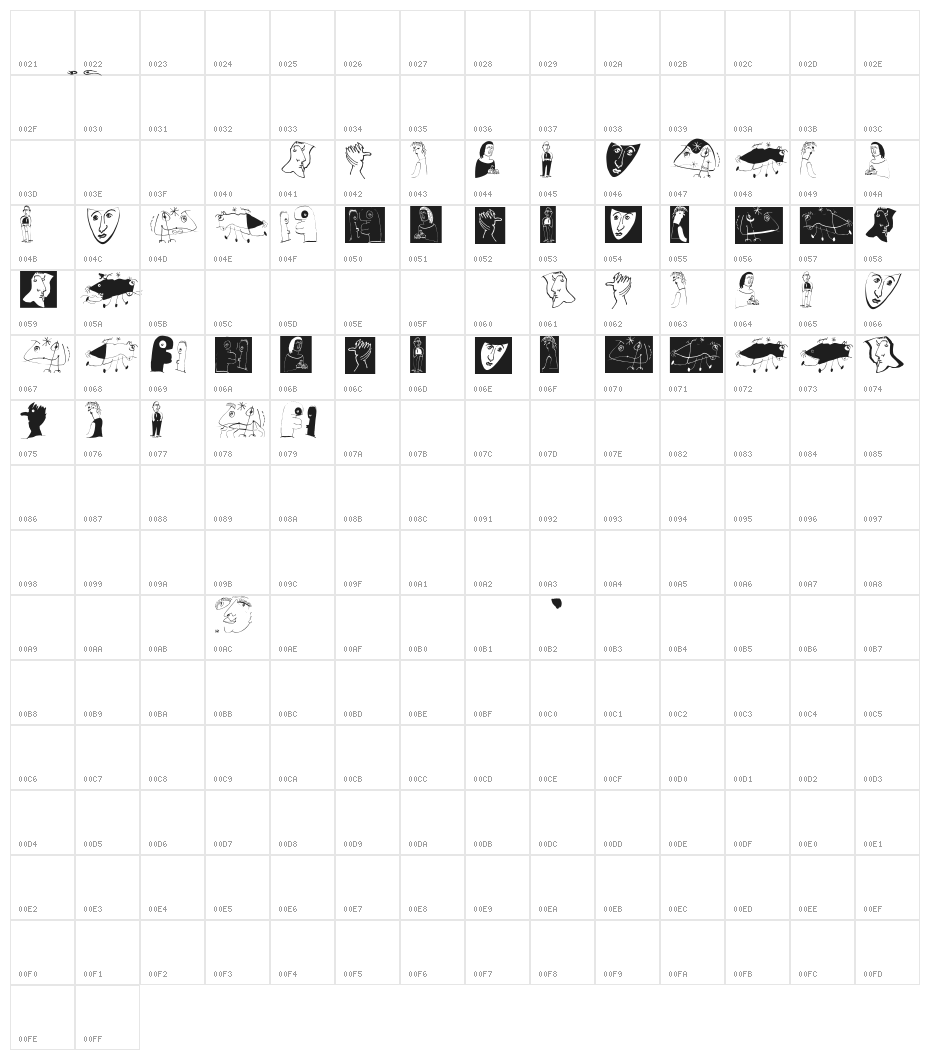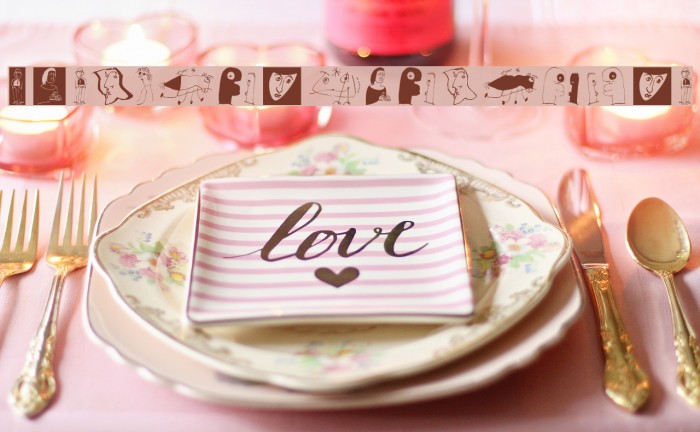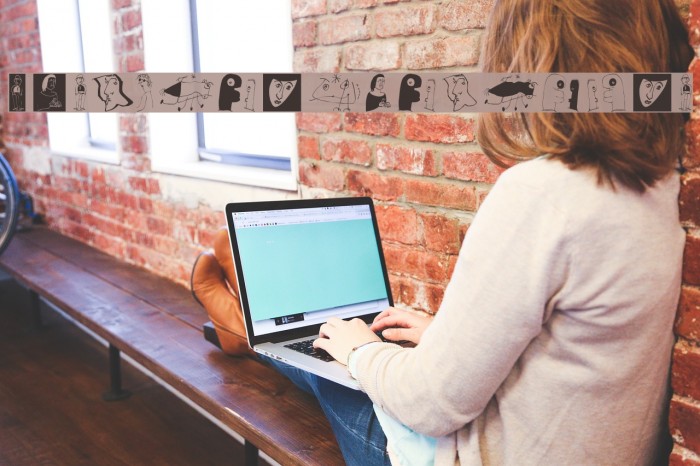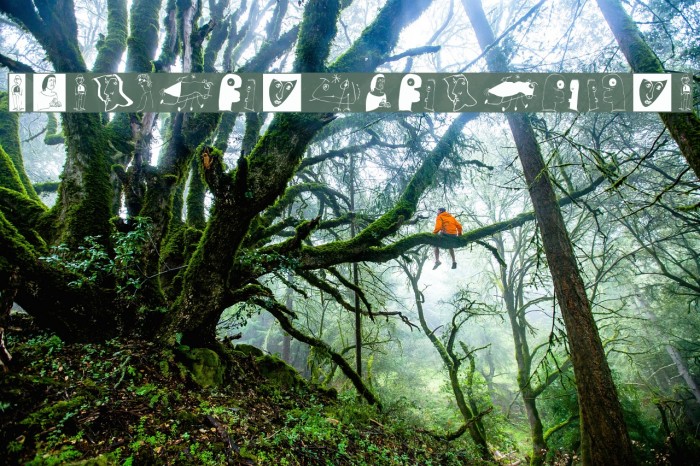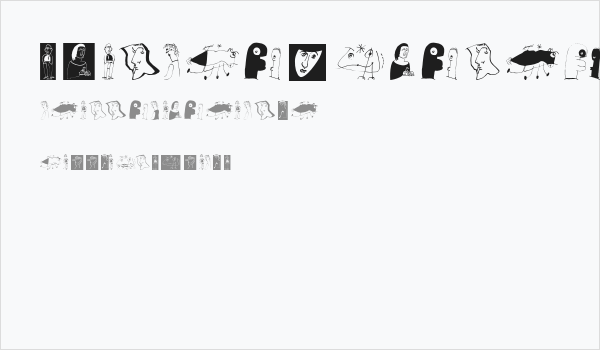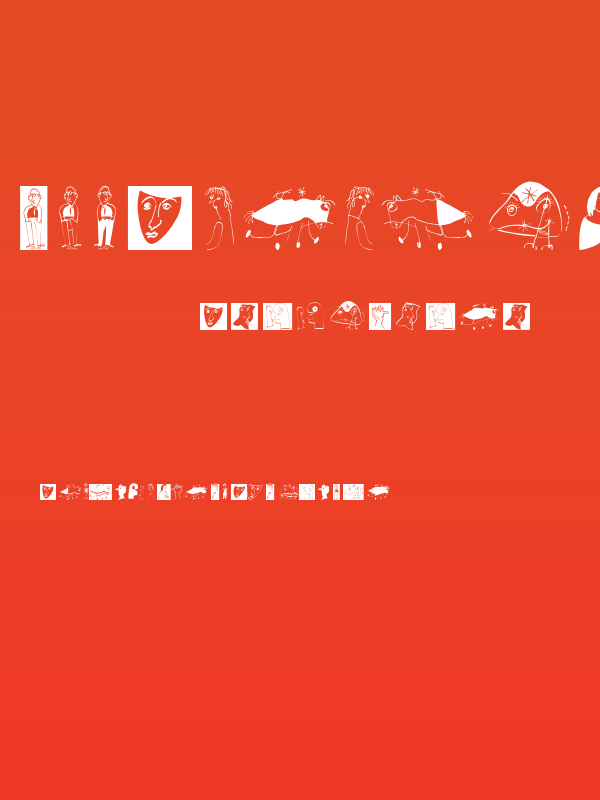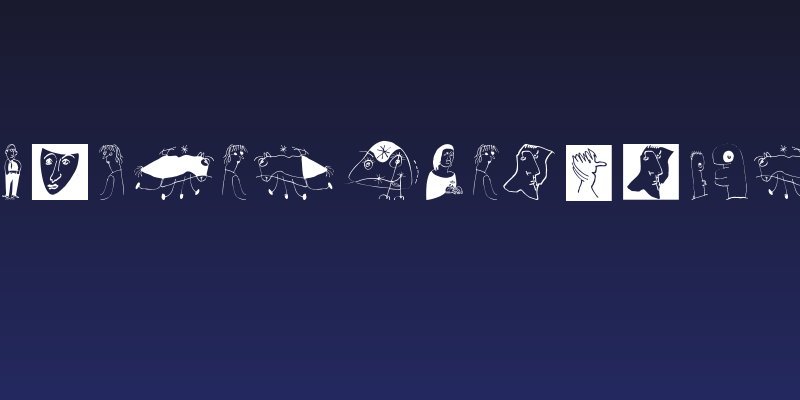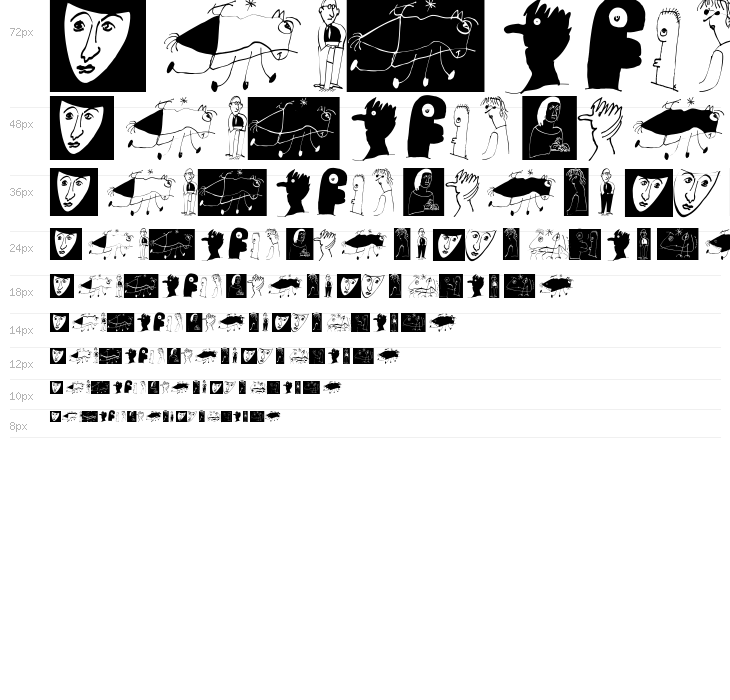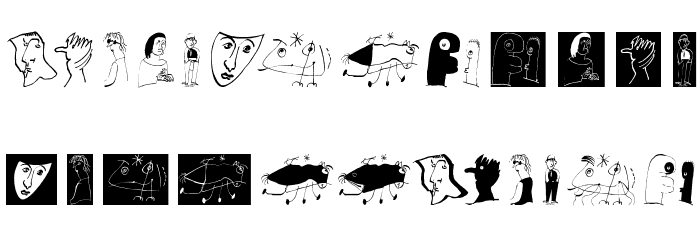
A highly decorative and illustrative font composed of hand-drawn, sketch-like characters and pictograms, featuring abstract faces, animals, and whimsical figures. The glyphs are unique, expressive, and vary in complexity, with some filled and others outlined, creating a playful and artistic appearance.
| Overall Style | Decorative, Artistic, Whimsical |
| Use Case | Logos, Posters, Art projects, Editorial titles |
| Proposed Projects | ChildrenΓ’β¬β’s books, art posters, creative branding, album covers, editorial illustrations, greeting cards. |